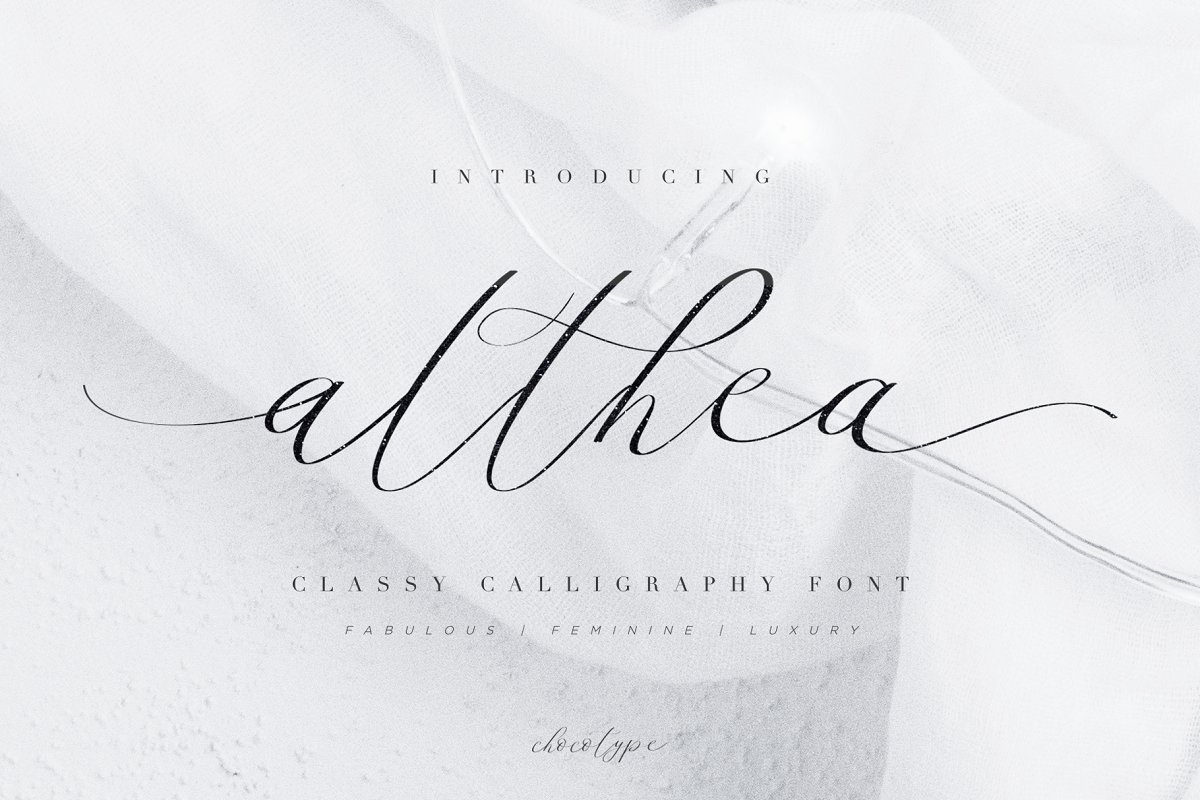
Althea Font
Althea Font is perfect for various design applications including holistic wellness branding, natural healing center signage, herbal medicine packaging, organic spa communications, therapeutic massage therapy logos, botanical garden materials, natural health product labels, wellness retreat promotions, healing arts practice identities, and mindful living lifestyle brands. This nurturing typeface excels in projects requiring healing energy and therapeutic aesthetics that celebrates the ancient wisdom of natural medicine and the gentle power of holistic healing.
What makes Althea Font so exciting is its gentle embodiment of healing wisdom and therapeutic grace through letterforms that suggest the restorative power of natural medicine and the compassionate touch of healing arts. The font features flowing organic curves that mirror medicinal plant growth, balanced proportions that create visual harmony and calm, and distinctive character details that evoke the careful preparation of herbal remedies and therapeutic treatments. Its distinctive healing character and nurturing appeal make it perfect for wellness brands seeking to communicate authentic healing, natural wisdom, and the transformative power of holistic therapeutic approaches.
Althea Font family includes therapeutic weights and healing variations that enhance its versatility for different wellness applications. Each style maintains the font's signature nurturing character while providing options for various healing arts design approaches. The family also features botanical decorative elements, healing symbols, and therapeutic ornaments that can be combined with the letterforms to create cohesive natural medicine design systems.
Whether you're developing wellness brands, healing arts practices, or therapeutic communications, Althea Font Free Download provides nurturing typography that promotes healing and celebrates the ancient wisdom of natural medicine and holistic therapeutic traditions. This typeface transforms ordinary communications into healing experiences that promise authentic wellness and therapeutic transformation. The font's therapeutic appeal makes it particularly effective for natural health practitioners, wellness centers, and holistic healing services targeting clients seeking authentic natural medicine and gentle therapeutic care.
Althea Font stands out by delivering genuine healing authenticity that feels connected to real therapeutic traditions rather than superficial wellness marketing. Its carefully designed nurturing proportions and healing details ensure that designs feel authentically connected to natural medicine heritage and therapeutic wisdom. From holistic healing branding to wellness center communications, this font provides designers with tools to create communications that celebrate therapeutic arts and inspire appreciation for natural healing through gentle, medicine-inspired typography that nurtures body, mind, and spirit.